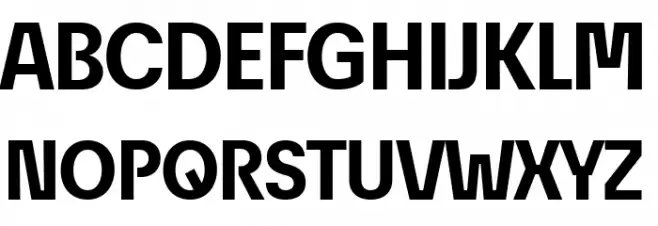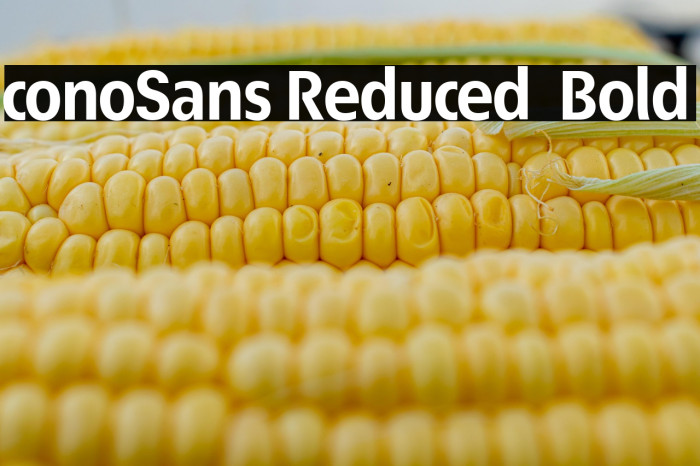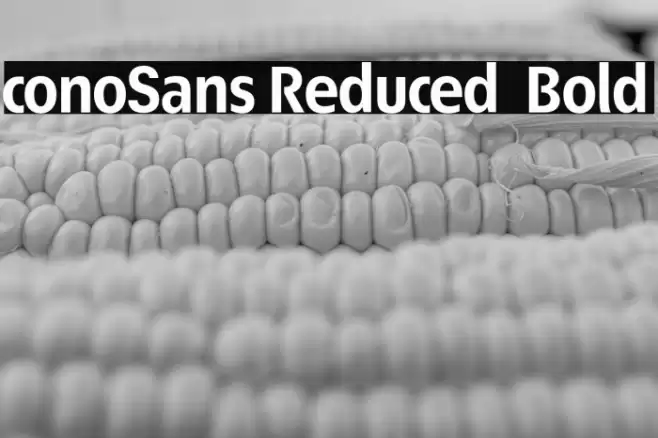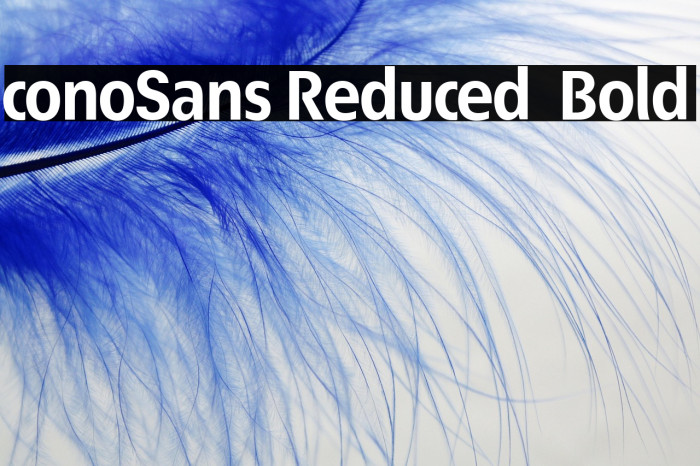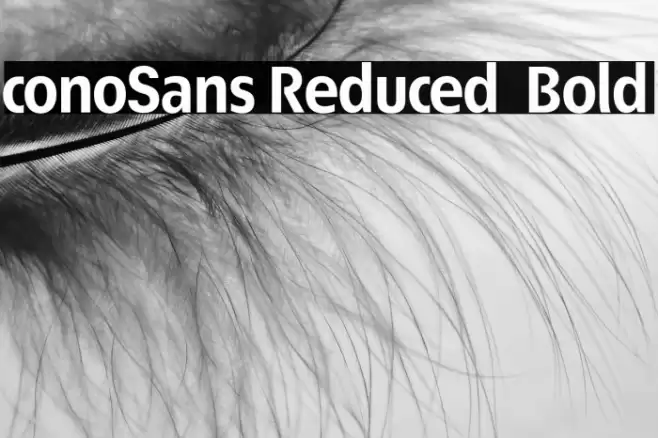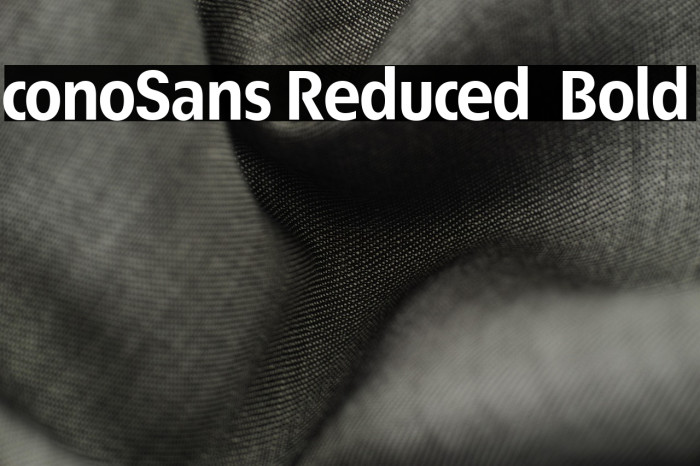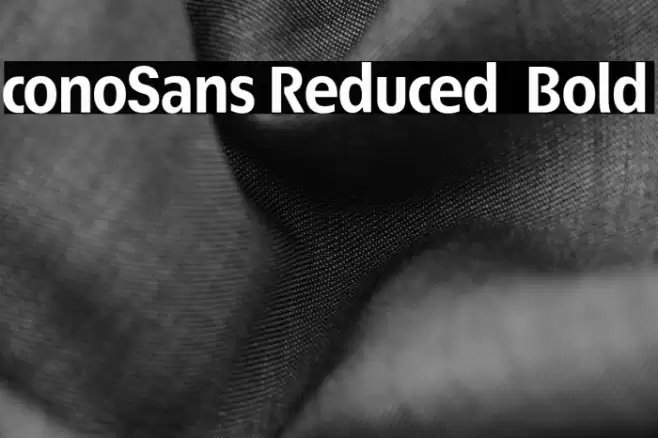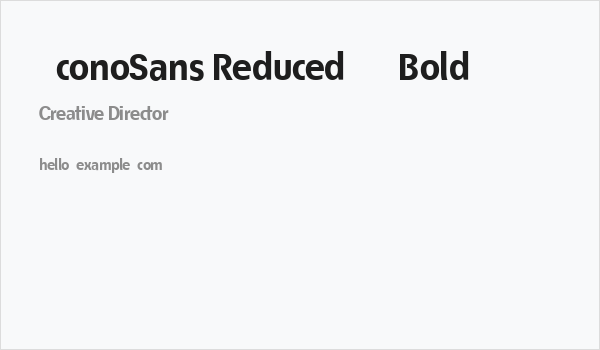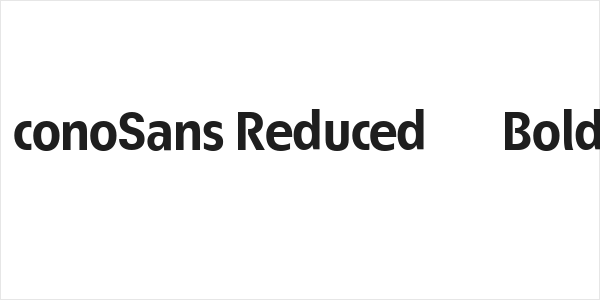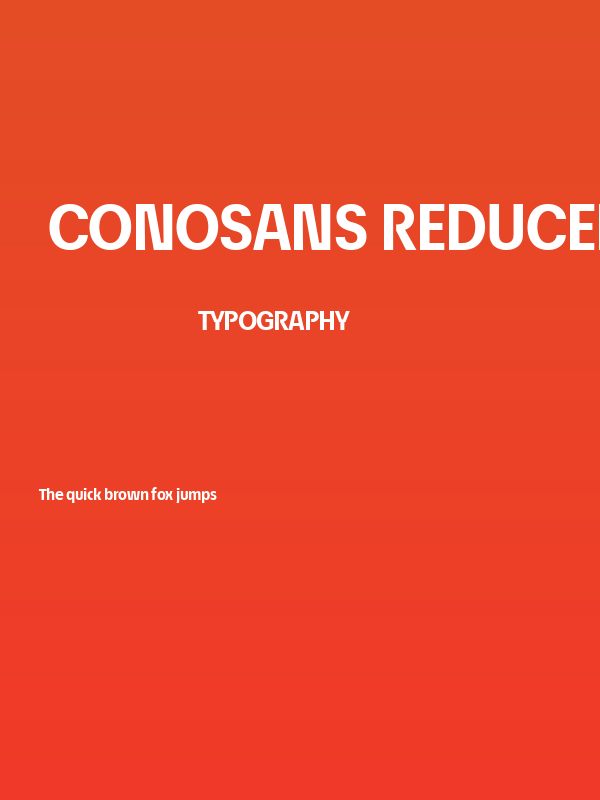
ÉconoSans Reduced 75 Bold Font
ÉconoSans Reduced 75 Bold Description
This font features a bold and modern sans-serif style with a strong presence. The characters are uniform and well-balanced, providing a clean and professional look. The uppercase letters are bold and impactful, while the lowercase letters maintain a consistent weight, offering excellent readability. The font's geometric shapes and even stroke widths contribute to its contemporary aesthetic. The spacing between characters is tight, enhancing its compact and efficient appearance. This font is versatile, suitable for various design applications that require a bold and assertive typeface.
| Proposed Projects | Ideal for branding, advertising, headlines, and digital media where a strong and modern typeface is needed. |